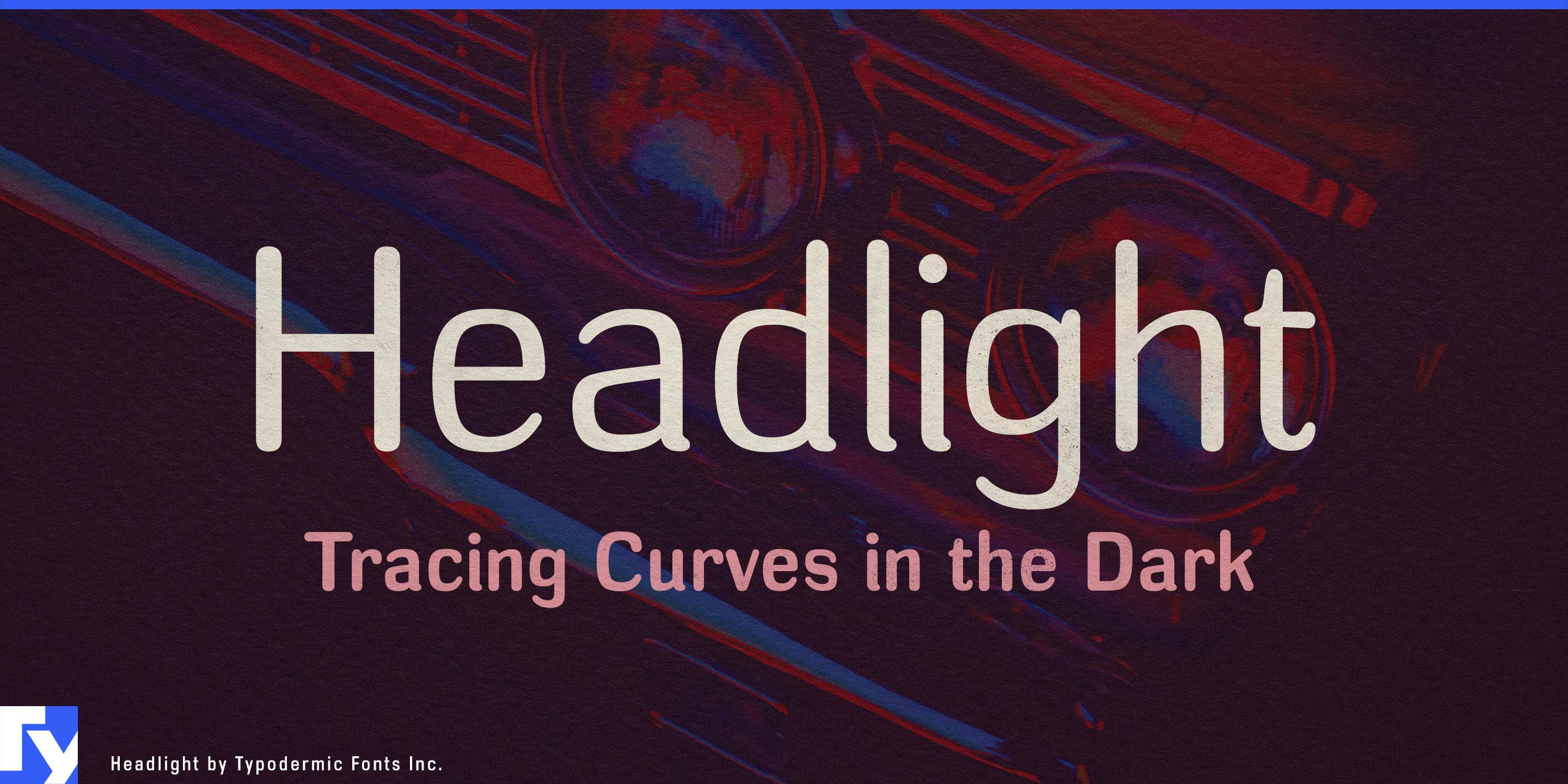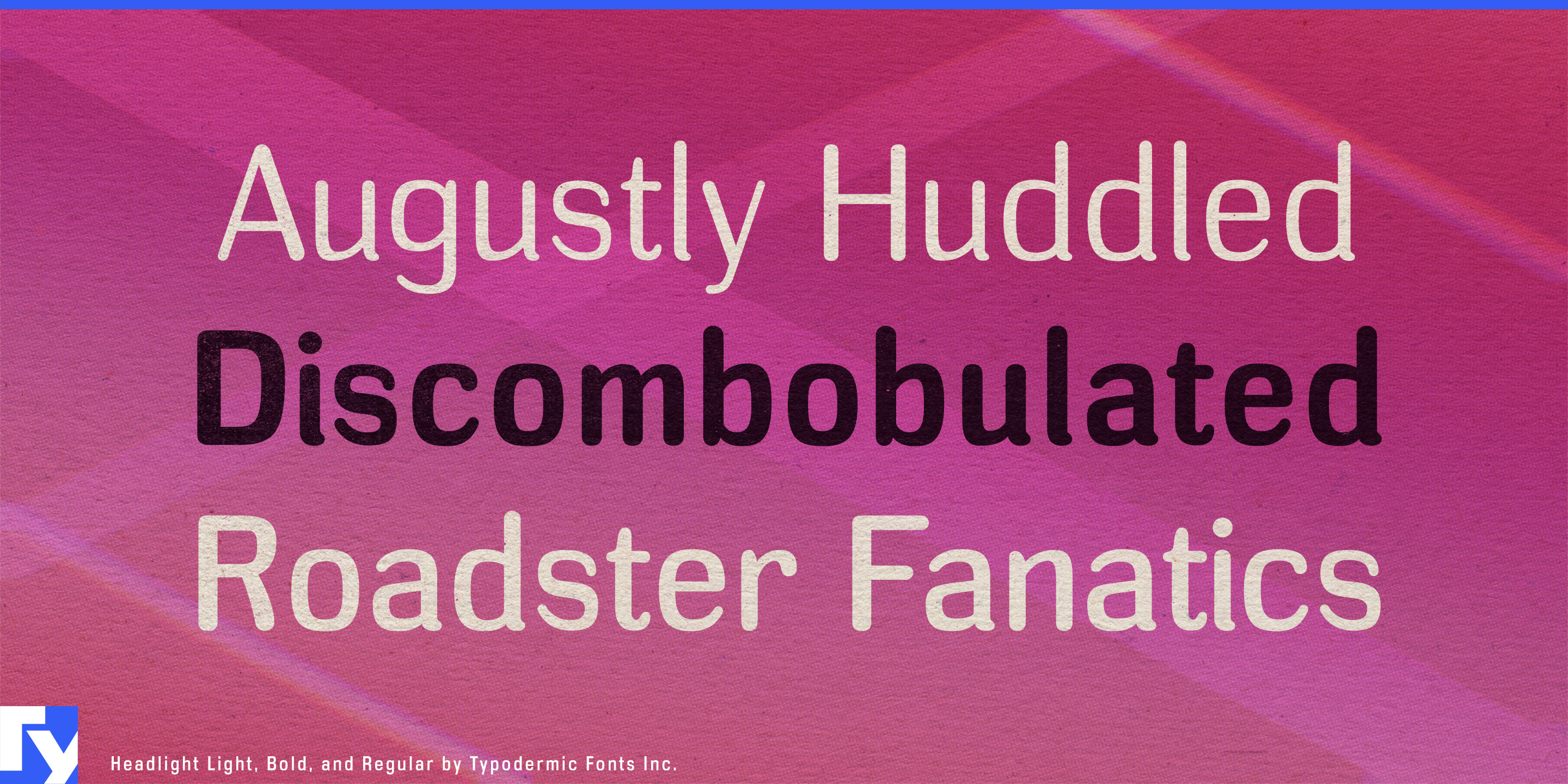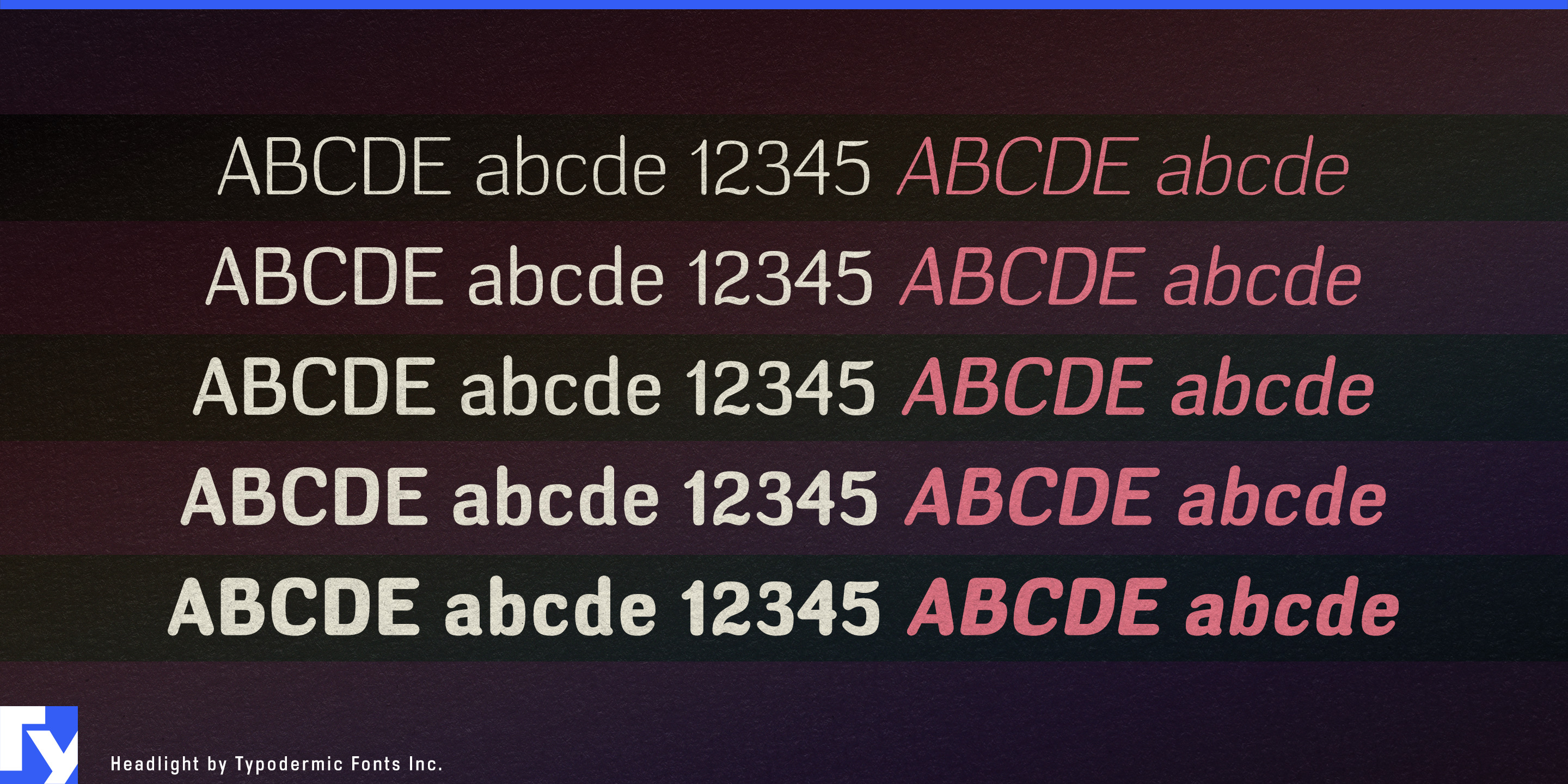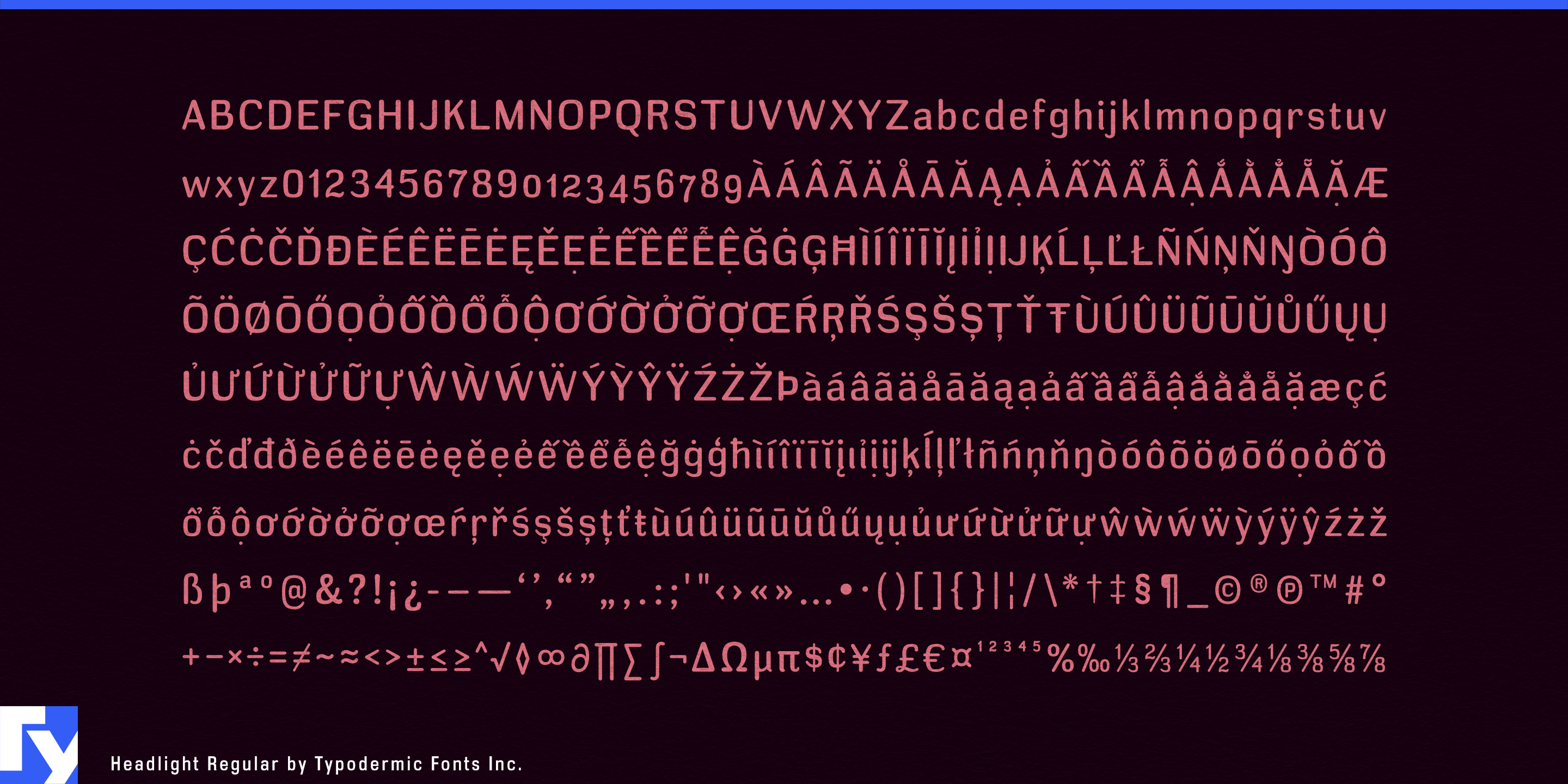
Headlight
Some machines have to meet the public.
A service robot crossing a hotel lobby, a parcel locker outside an apartment building or a check-in terminal at an airport cannot look like factory equipment. But pushing too far toward friendly rounded typography can make substantial hardware look toy-like. Headlight occupies the useful territory between those extremes.
Its mechanically squared, superelliptical forms give the letters an engineered foundation, while softened terminals and humanist stroke modulation take the severity out of the geometry. The result feels manufactured without becoming militarized, and approachable without becoming cute.
Service robots are a particularly natural application. Hotel delivery robots, restaurant serving robots, cleaning machines, retail assistants and campus delivery fleets need names and identities that acknowledge what they are without making them seem ominous. Headlight can handle robot names, model families, body decals, docking-station graphics and exhibition displays while a plainer companion takes care of diagnostics and dense interface information.
Self-service equipment presents much the same problem. Parcel lockers, hotel check-in terminals, ticket machines, smart vending systems, automated pickup cabinets and parking-payment kiosks combine rigid industrial housings with a point of human interaction. Headlight gives product names, service names, enclosure graphics and instructional headings a technical character that remains civil and accessible.
Public charging and shared-mobility systems extend that role outdoors. EV chargers, bicycle and scooter docks, battery-swap stations and mobility terminals are pieces of infrastructure that also function as consumer products. Building-access systems such as smart intercoms, visitor kiosks, parcel-room terminals and elevator destination systems face the same challenge: they must belong to engineered hardware while remaining comfortable in everyday public spaces.
The same balance works for domestic automation such as robot vacuums, automated lawn equipment and smart pet devices. Headlight is a rounded technical sans for machines people actually have to deal with; its squareness establishes the equipment, while its softened construction makes the introduction.
- Geometric, Rounded, Superelliptical
- Open counters